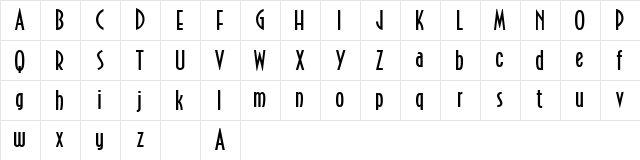
Lifestyle Condensed Free Font
Lifestyle Condensed
Style: Condensed
Design Context for Lifestyle
Lifestyle is a composed and adaptable typeface that performs quietly and consistently across a wide range of design contexts. Its narrow stance lets it pack a punch even in space-constrained designs.
Pro Tip: Use Lifestyle in both headline and body roles to test its range before committing to a single application.